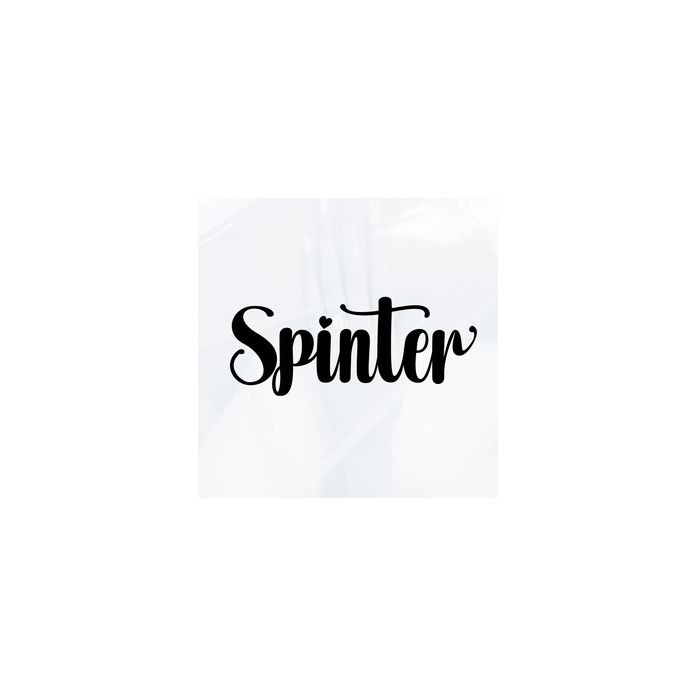
The newest Spinter Script This handwritten script is bouncy cursive with a thick weight bold font designed for the purposes of cutting with character of course this is very good and different from usual, because this is the original and different font. Now go ahead and use it for New Year's celebration projects, products, crafts, invitations and personalization. Includes alphabet, numbers, and punctuation.